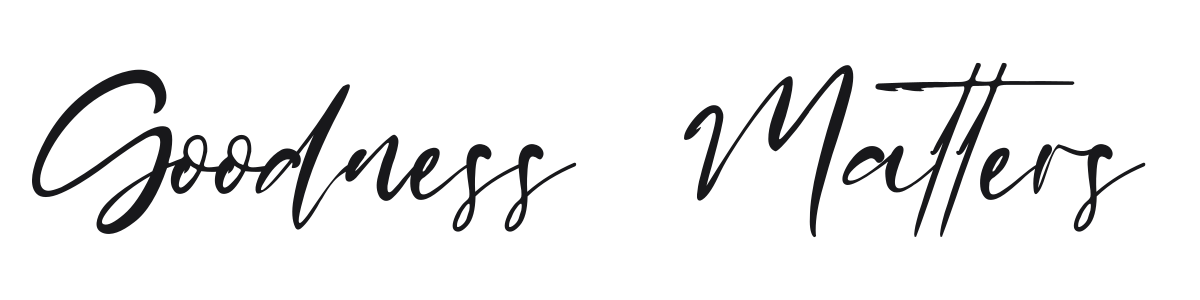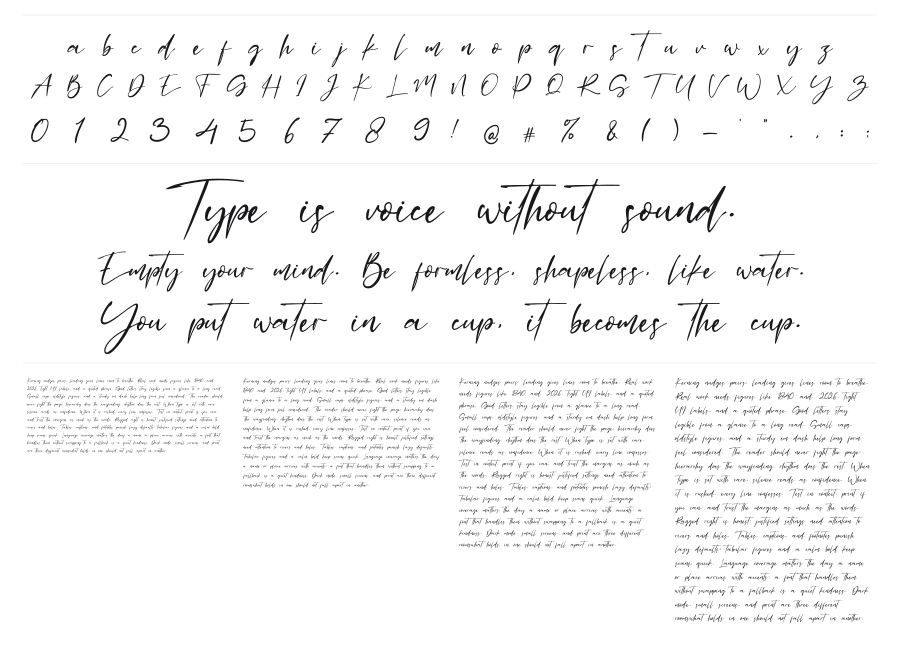
Goodness Matters
Goodness Matters is a loose, flowing casual script with the energy of a freshly inked signature. Strong contrast between thick downstrokes and delicate hairlines gives it a calligraphic authenticity, while the bouncy baseline keeps it feeling spontaneous rather than stiff. It brings a handcrafted warmth to branding, packaging, and editorial headlines.